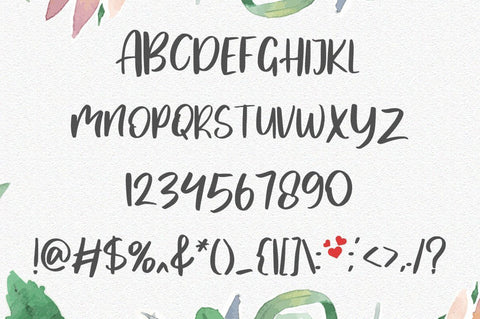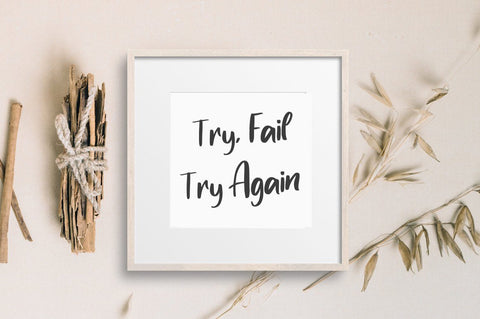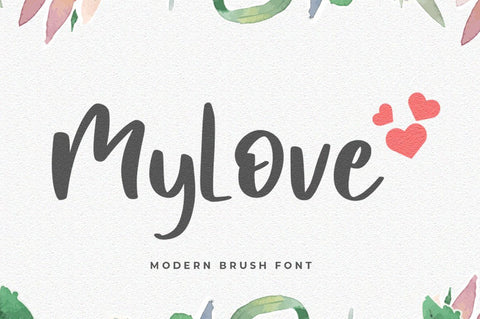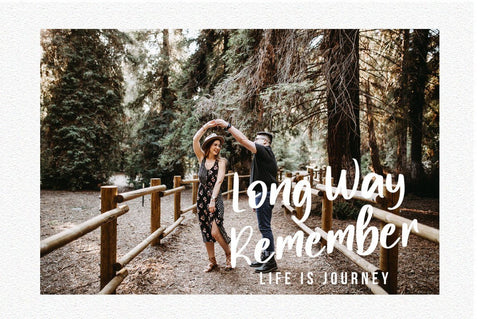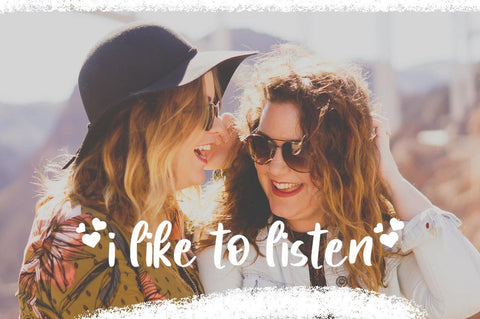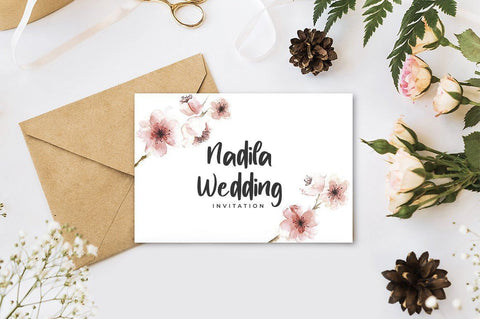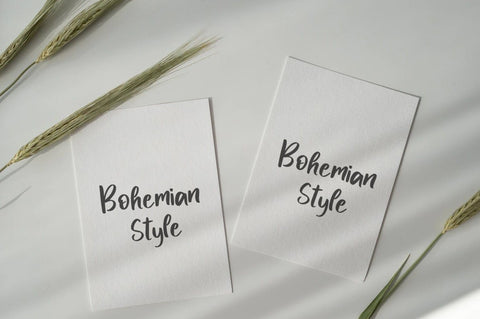
Mylove - Love Font
My Love is a sweet and beautiful handwritten font, created with the help of a lovely brush pen. Fall in love with its incredibly versatile style and use it to create gorgeous wedding invitations, beautiful stationary art, eye-catching social media posts, and much more!